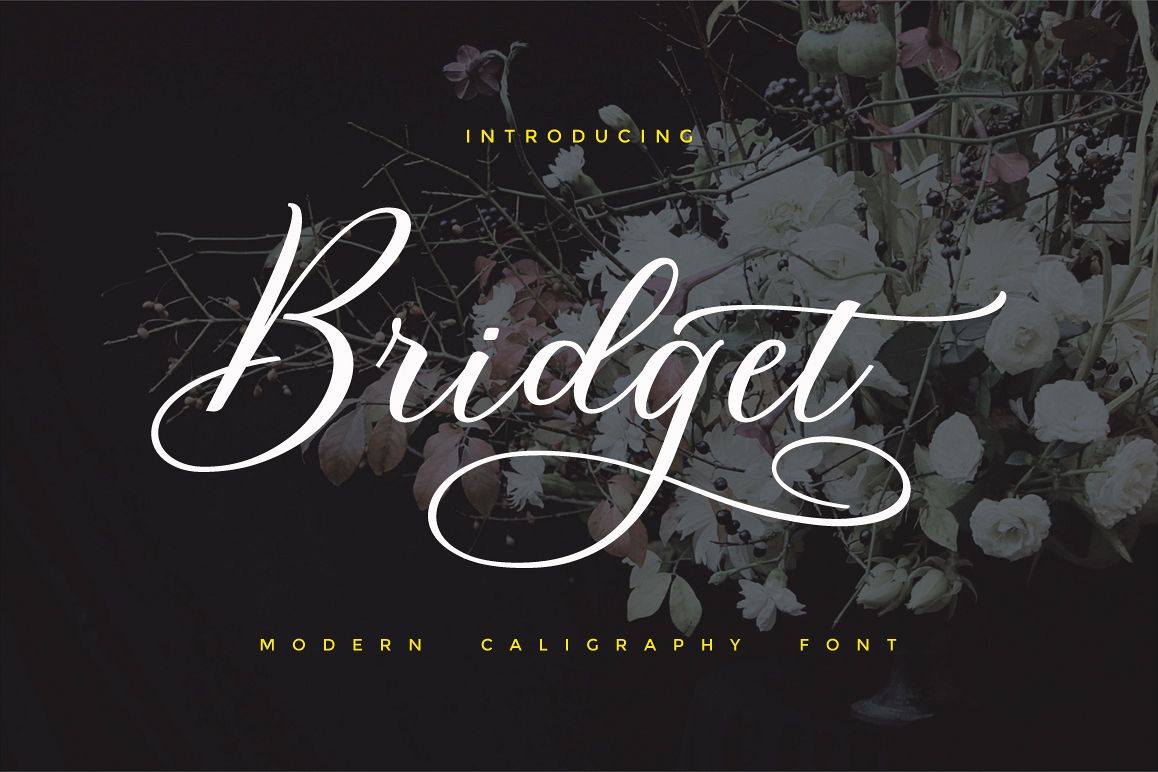
Bridget Script
Introducing Bridget Script a new fresh & modern script with a calligraphy style, decorative characters and a dancing baseline! So beautiful on invitation like greeting cards, branding materials, business cards, quotes, posters, and more!
The alternative characters were divided into several Open Type features such as Stylistic Sets, Stylistic Alternates and Ligature. The Open Type features can be accessed by using Open Type savvy programs such as Adobe Illustrator, Adobe InDesign, Adobe Photoshop Corel Draw X version, And Microsoft Word. And this Font has given PUA unicode (specially coded fonts). so that all the alternate characters can easily be accessed in full by a craftsman or designer.